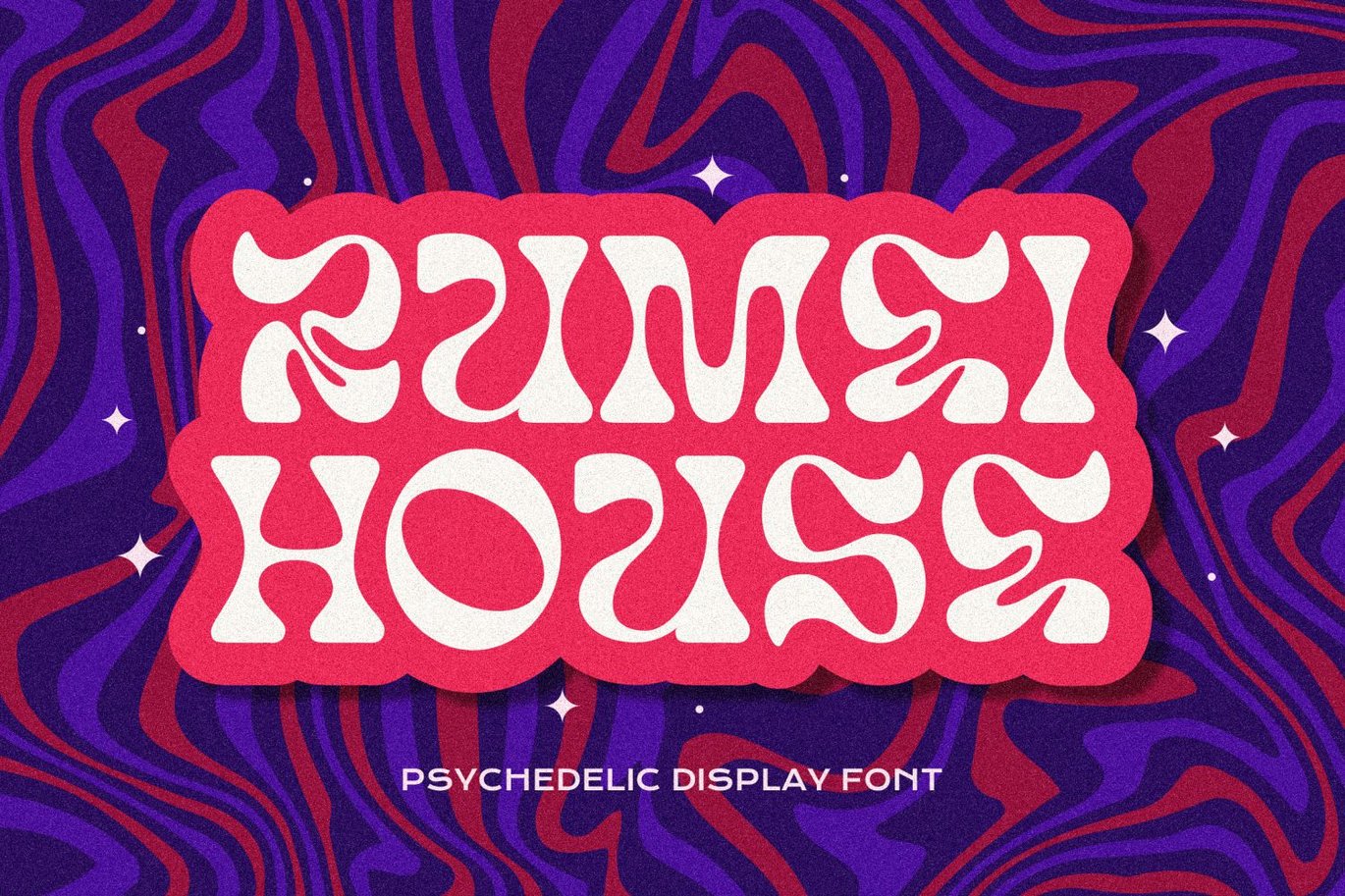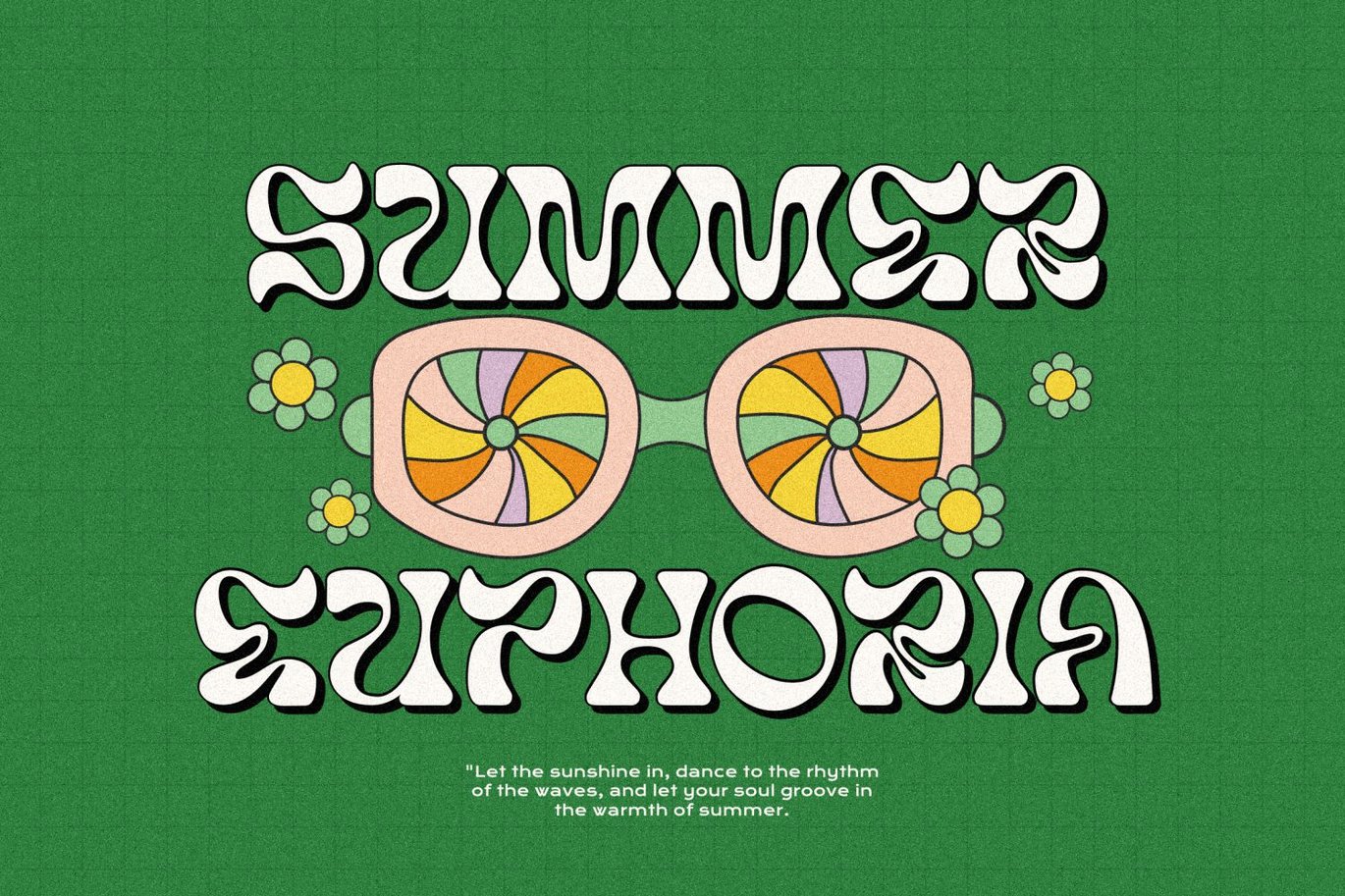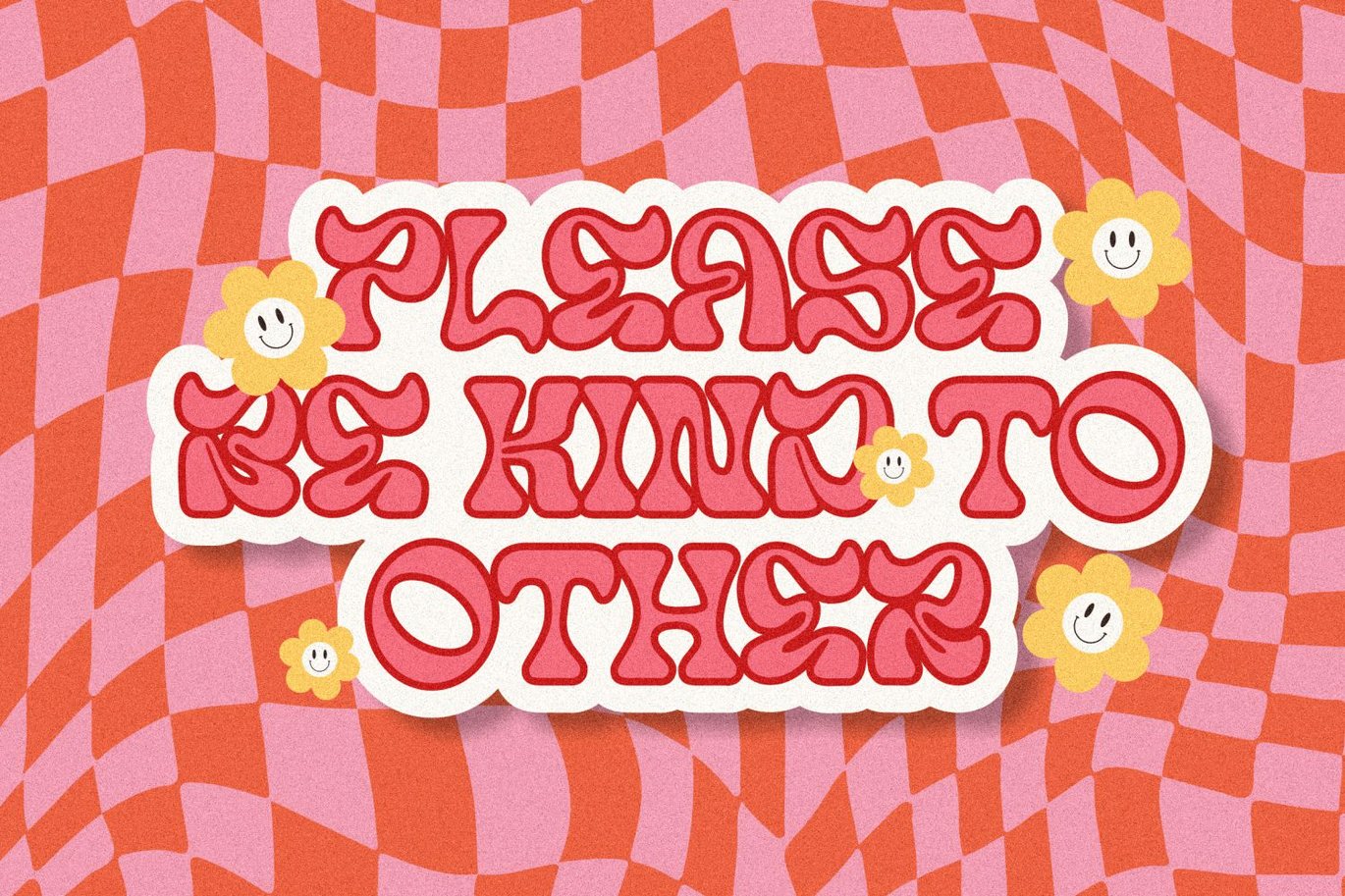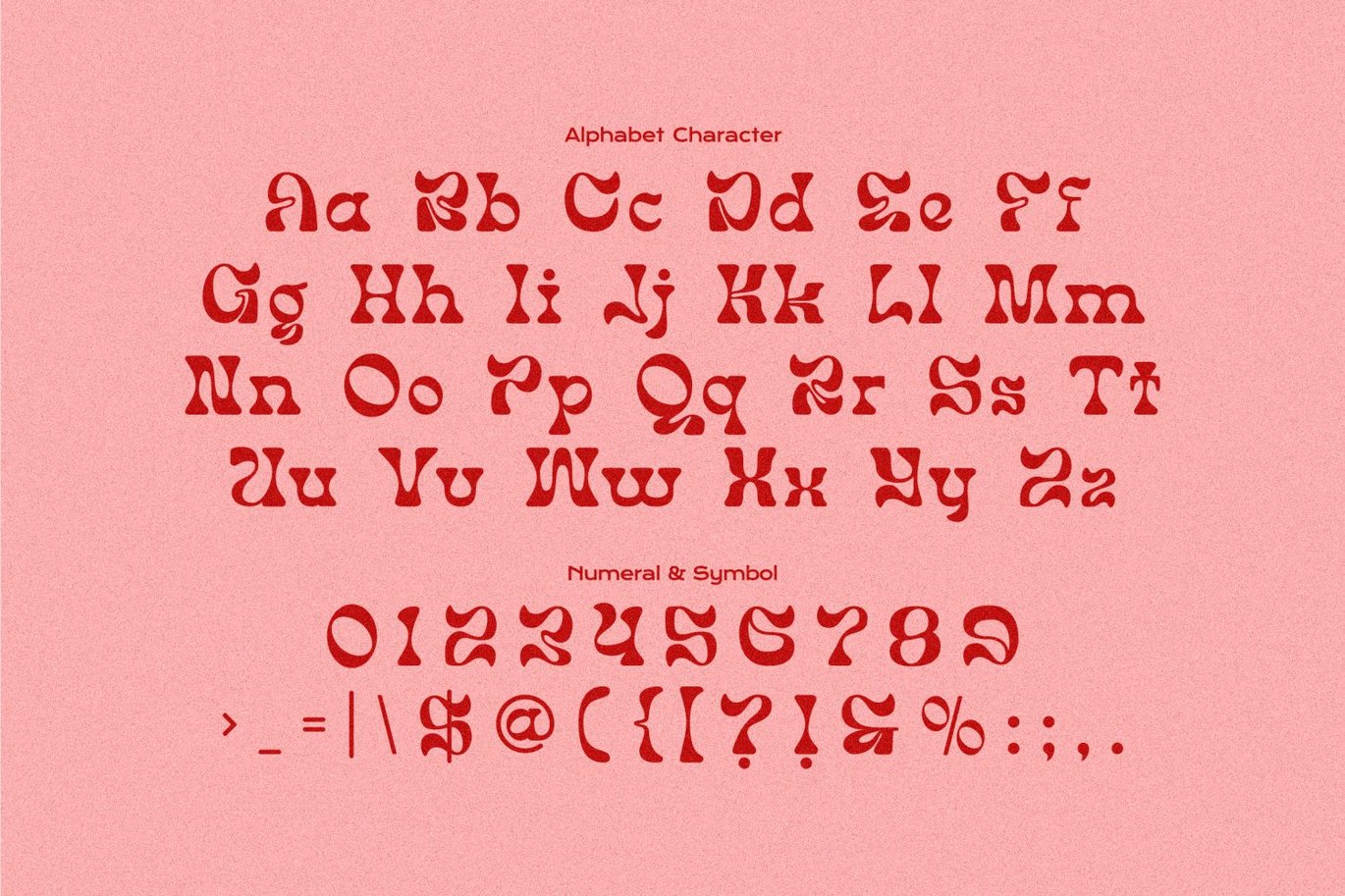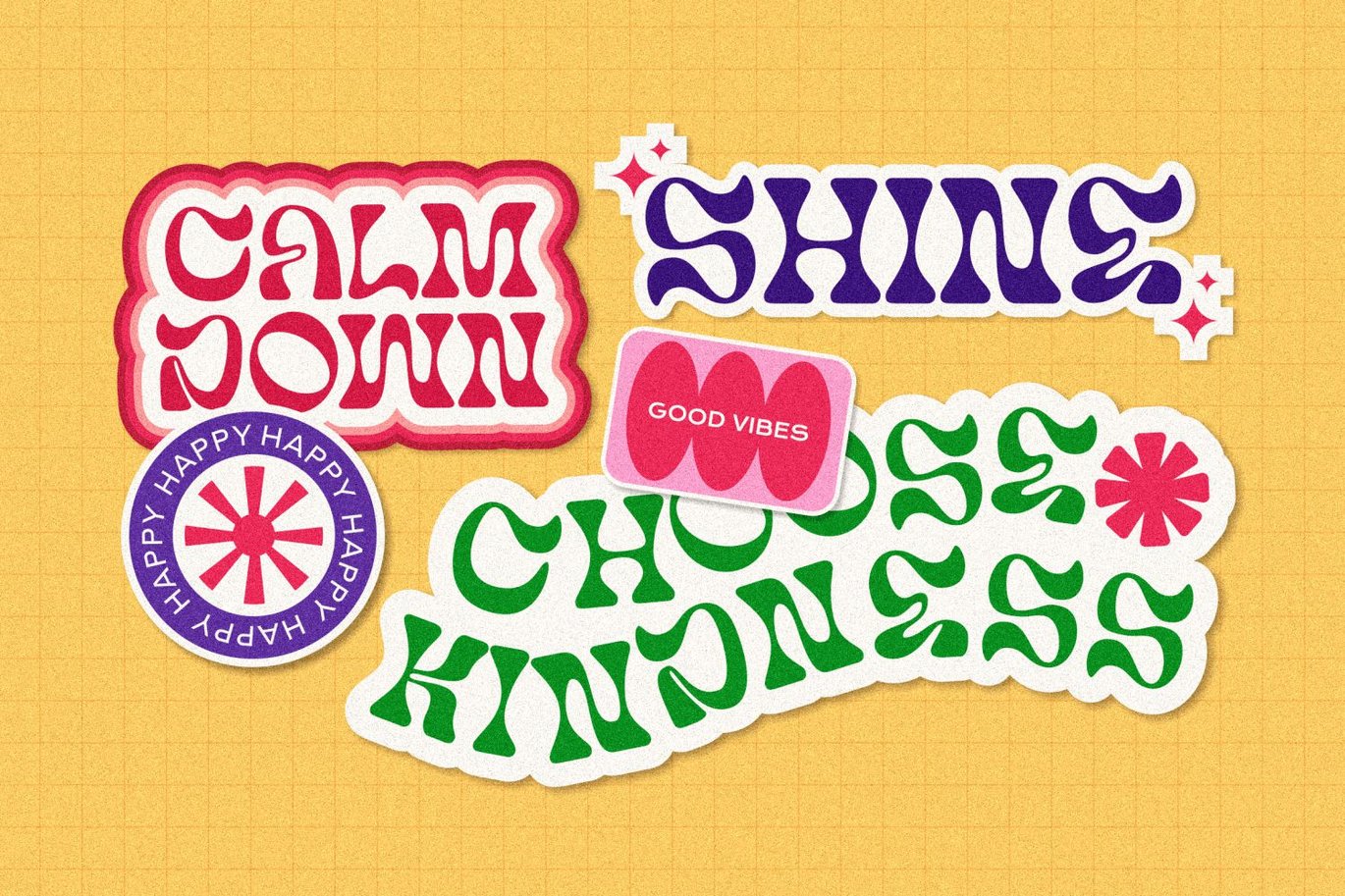
Rumei House – Psychedelic Display Font
Rumei House is a psychedelic display font with roots in the Art Nouveau movement and the psychedelic sixties, add just the right dose of vintage freak a delia to your retro graphics with this original psychedelic style design.
Evoke a warpy, wavy, whimsical vibe that harks back to the carefree 1960s or early 1970s era with Sixties Flashback.